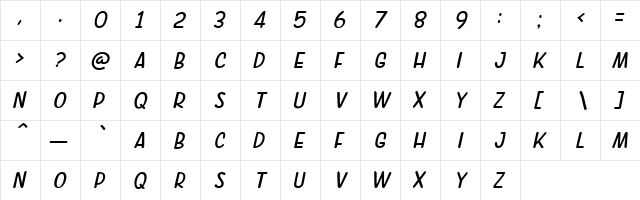
SMOTHINK Regular
Design Context for SMOTHINK Typeface
SMOTHINK is a composed and adaptable typeface that performs quietly and consistently across a wide range of design contexts. Its slender proportions lend an understated elegance to any composition.
Pro Tip: Pair SMOTHINK with a font of contrasting weight or personality to build a more expressive typographic hierarchy.